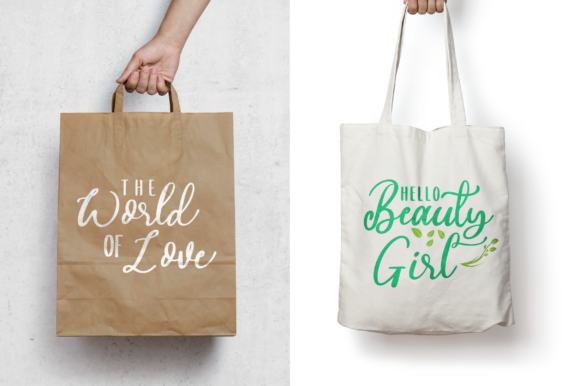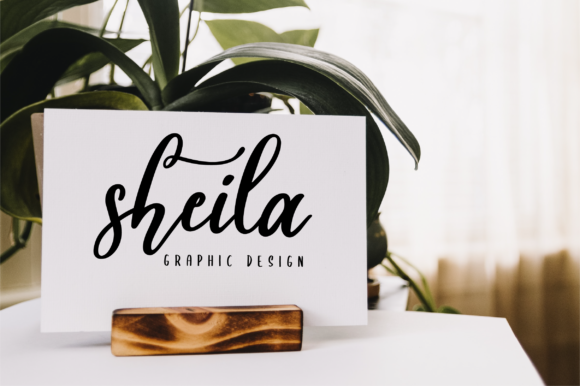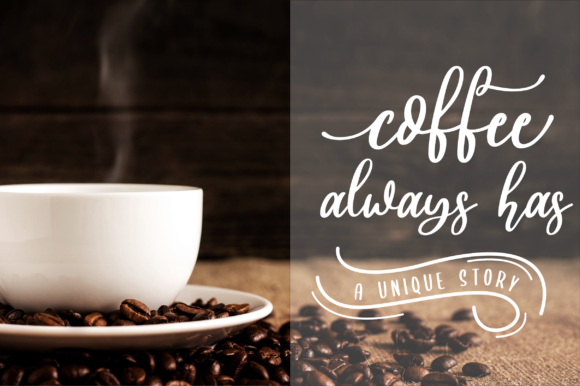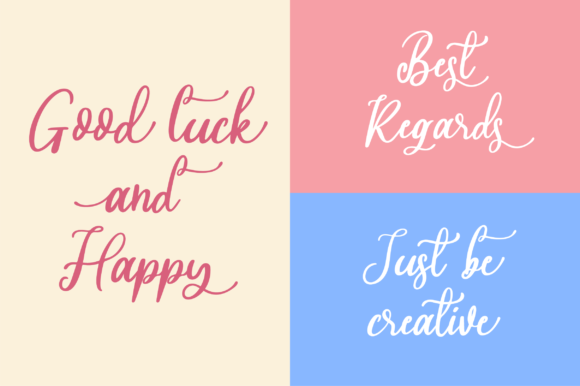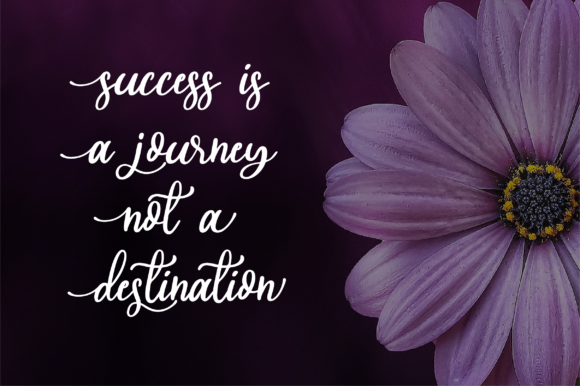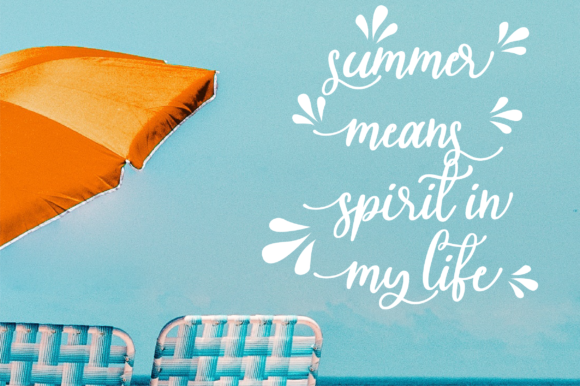
Introduction to Sheila Script Font
Have you ever stumbled upon a design element that instantly sparks a creative idea? For me, it was the moment I discovered the enchanting Sheila Script Font. Its beautiful swashes and romantic charm transport me to a world of whimsical wonder, making it the perfect addition to any creative project.
As a designer, I’m always on the lookout for high-quality design resources that can elevate my work and bring it to life. The Sheila Script Font is one such treasure, offering a unique and stylish touch that’s sure to impress. With its transparent background and free download, it’s an accessible and valuable asset for designers looking to add a touch of elegance to their designs.
Key Features of Sheila Script Font
- High-quality, elegant script font ideal for creative projects and design resources.
- Comes in a transparent background, allowing for seamless integration into various design elements.
- Sheila Script Font is available in a single size, with scalable vector graphics for high-resolution output.
- Resolution-independent, ensuring crisp and clear text display across various devices and resolutions.
- Perfect for wedding invitations, greeting cards, and other creative projects requiring a touch of elegance.
Honest Review: Sheila Script Font
I recently stumbled upon the Sheila Script Font, and I must say, it’s a fantastic design resource for any creative project. The moment I laid eyes on it, I knew I had to give it a try.
What works well with this font is its high quality and versatility. It’s perfect for designing elegant invitations, posters, and even social media graphics. The free download option is also a huge plus, making it easily accessible to designers of all levels.
Here are some key features that I love about the Sheila Script Font:
- ✨ Beautiful, cursive script that adds a touch of elegance to any design
- ✨ Comes in a transparent background, making it easy to overlay on any image or background
- ✨ High-quality design that’s perfect for both personal and professional projects
- ⚠️ Limited character set, which may not be ideal for longer blocks of text
- ⚠️ Not suitable for bold or heavy text, as it can get lost in the design
Overall, I’m really impressed with the Sheila Script Font. It’s a great addition to any designer’s toolkit, and I highly recommend giving it a try for your next creative project.
Tips for Getting the Most Out of Sheila Script Font
To get the most out of the Sheila Script Font, experiment with different font sizes, colors, and combinations. Pair the font with other high-quality fonts to create a unique and visually appealing design. Use the font in creative ways, such as in quotes, titles, or headings, to add a touch of elegance to your project.
The Sheila Script Font is perfect for a variety of design projects, including wedding invitations, birthday party decorations, and social media graphics. It’s also great for creating eye-catching titles, headings, or quotes for your blog or website.